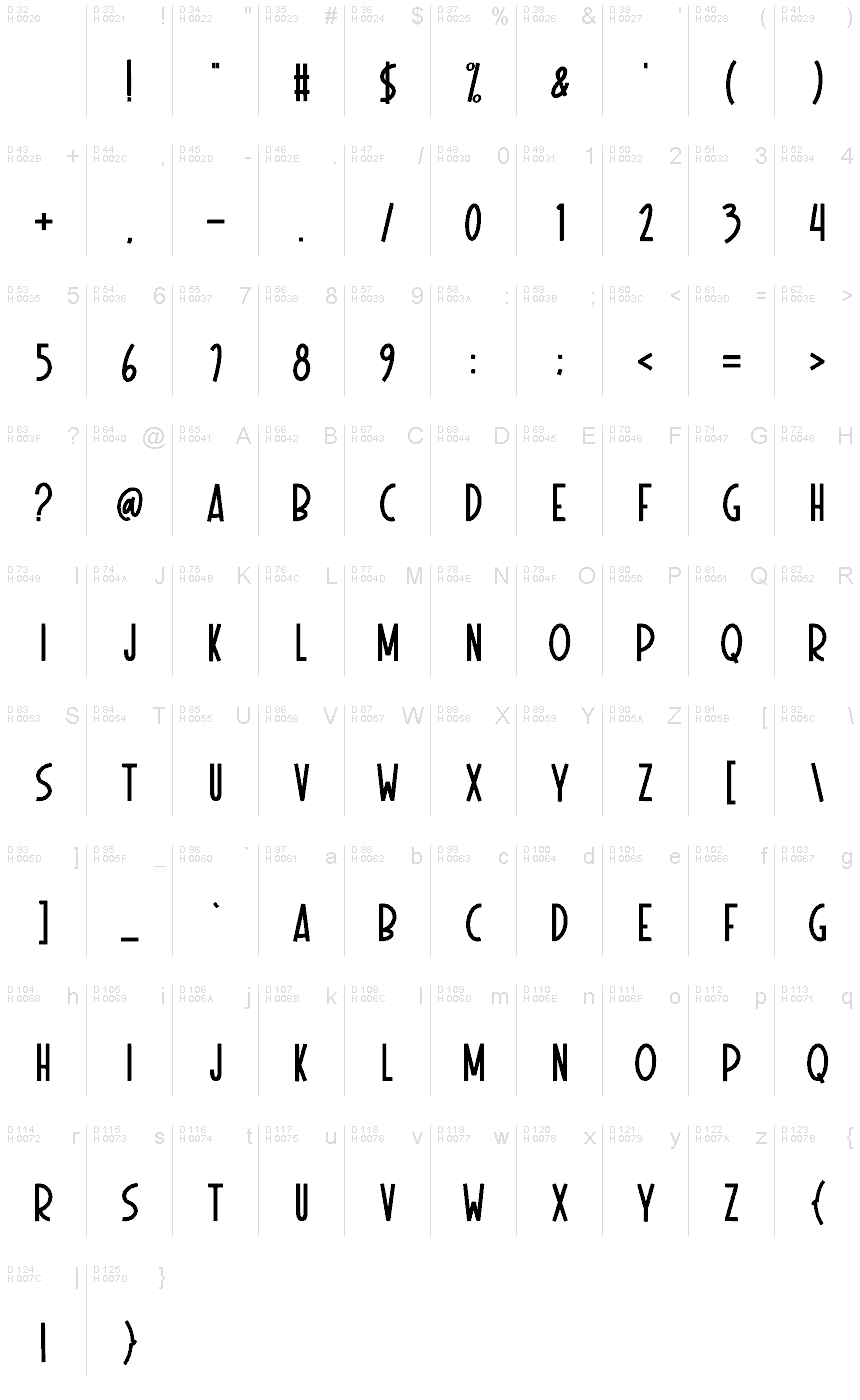
Heroes
Heroes font by Skiiller Studio is a cartoon-style display font that embodies a playful yet streamlined aesthetic. Its condensed width offers a unique twist, making it ideal for designs where space is limited but style cannot be compromised. The geometric structure and modernist influences lend the typeface an air of sophistication and timelessness.